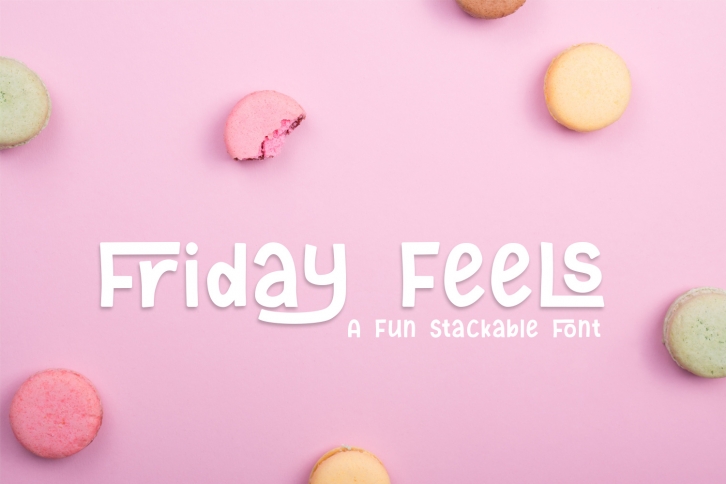
Friday Feels is a gorgeous font that was realeased on September 8, 2017. The font can be used in many style contexts and design environments. Perfect for invitations, magazines, websites, logos, and more! It was designed by Kristy Hatswell and the file size is 8.50 MB. Thanks for checking out this font!